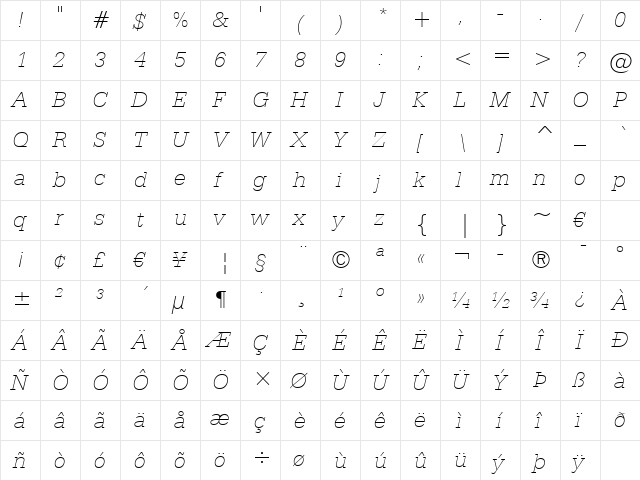
Serifa Th BT Thin Italic Font Preview
Design Context for Serifa Th BT Typeface
Serifa Th BT carries the refined structure of traditional serif typography, with bracketed terminals and considered proportions that communicate credibility and craft. Its italic angle brings a sense of urgency and motion to the letterforms. Its slender proportions lend an understated elegance to any composition.
Pro Tip: Set Serifa Th BT at slightly larger body copy sizes than you would a regular-weight serif to compensate for its delicate stroke contrast.